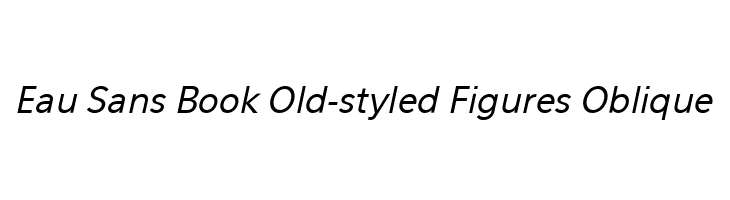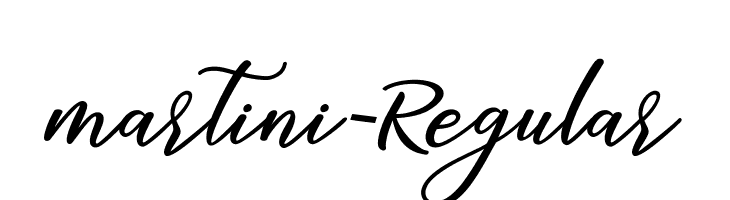
A modern, oblique sans-serif font with clean lines and a minimalist design.
A bold, decorative font with a calligraphic, fantasy-inspired style.
A playful, cursive font with a dynamic and energetic style.
An ornate and decorative font with high contrast and intricate flourishes.
An ornate and decorative font with intricate swirls and flourishes.
A playful, hollow, hand-drawn font with rounded edges and a whimsical style.
A bold, geometric font with a three-dimensional, futuristic design.
A bold, decorative serif font with high contrast and vintage-modern appeal.
A bold, angular font with high contrast and a distinctive, edgy style.
A clean, modern font with uniform stroke width and minimalist design.